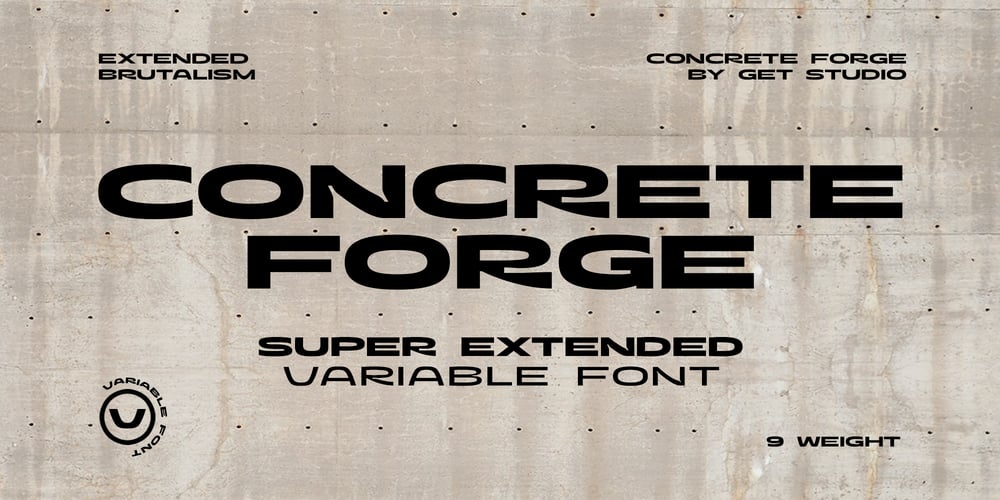
Concrete Forge Font Family was designed by Hermansyah and published by Get Studio. Concrete Forge contains 10 styles and family package options. ConcreteForge: A fearless brutalist font with extended shapes, exuding strength, and resilience. Captivating and impactful, it embraces simplicity while making a bold statement for branding and design projects.Inspired by the raw aesthetics of brutalist architecture, this typeface exudes strength and confidence.The family includes 9 fonts in a variety of weights and supports Variable Font.